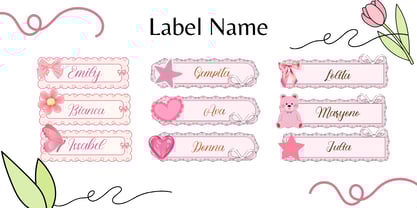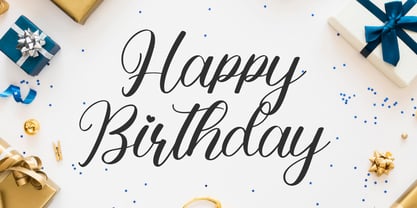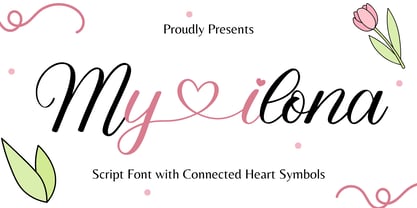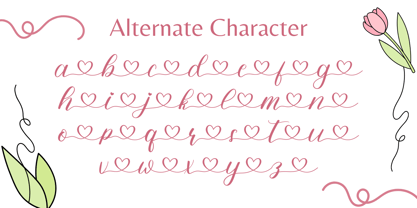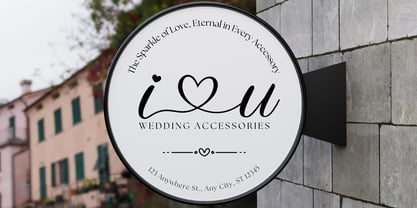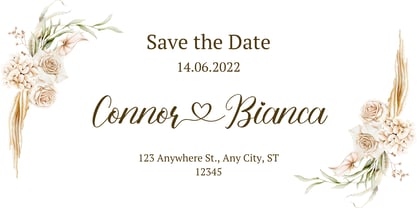
My Ilona
La famille de polices My Ilona a été conçue par Dian Haniffan Hadi et publiée par Beary. My Ilona contient 1 styles.
Every stroke of "My Ilona" is a whisper of romance. This modern calligraphy font is crafted with love, creating dynamic letterforms that dance gracefully along the baseline. The result is typography that feels alive, personal, and authentic—breaking free from the stiffness of typical digital fonts.
Transform your design into a luxurious work of art. My Ilona is the key to creating:
• Wedding invitations that will always be remembered.
• Logos that radiate elegance and softness.
• Captivating titles and quotes for social media.
• Premium product branding that needs a personal touch.
With dozens of naturally flowing ligatures and beautiful alternate characters, your creativity will have no limits. And of course, all its magic is easily accessible, as My Ilona is fully PUA Encoded—making it usable even without specialized design software.